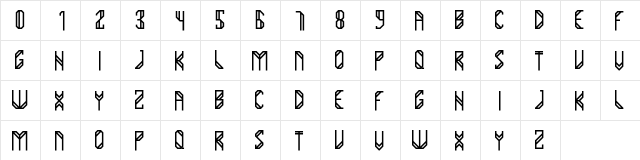
Yuma Regular
| Foundry | Gumpita Rahayu |
| Designer | Gumpita Rahayu |
Design Context for Yuma Typeface
Yuma is a composed and adaptable typeface that performs quietly and consistently across a wide range of design contexts.